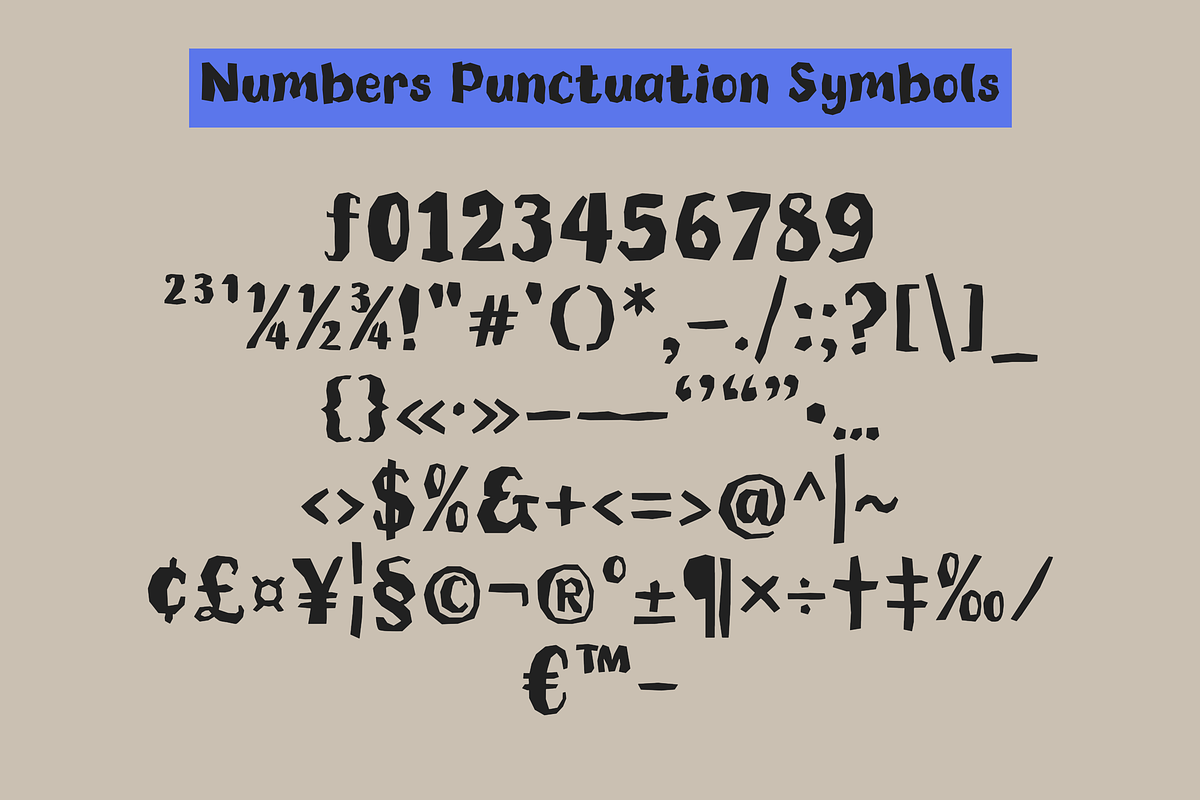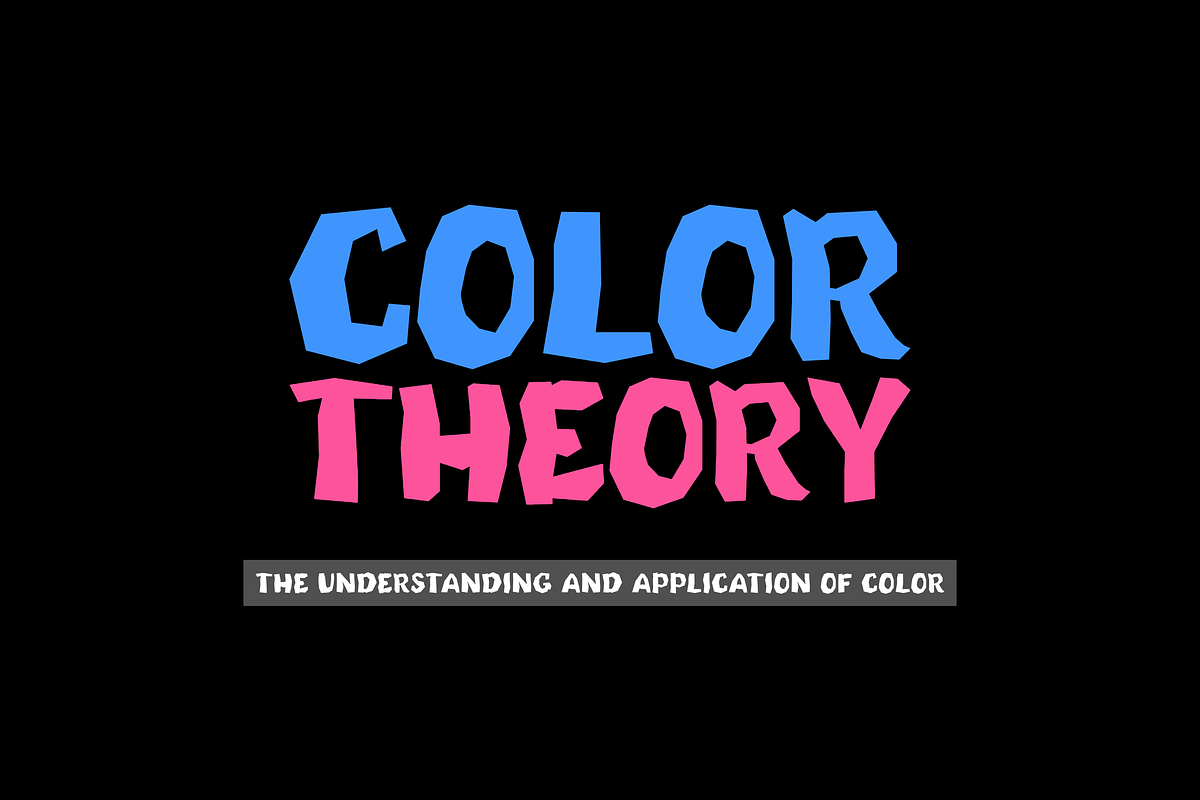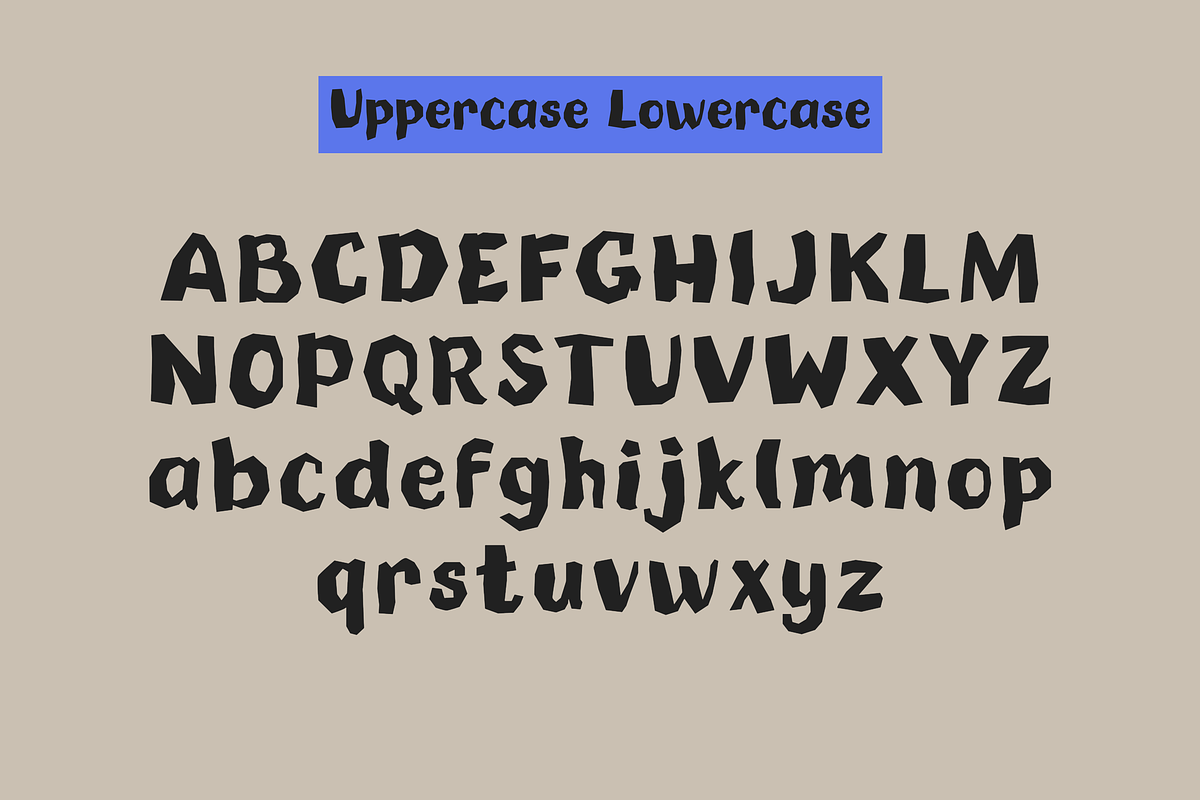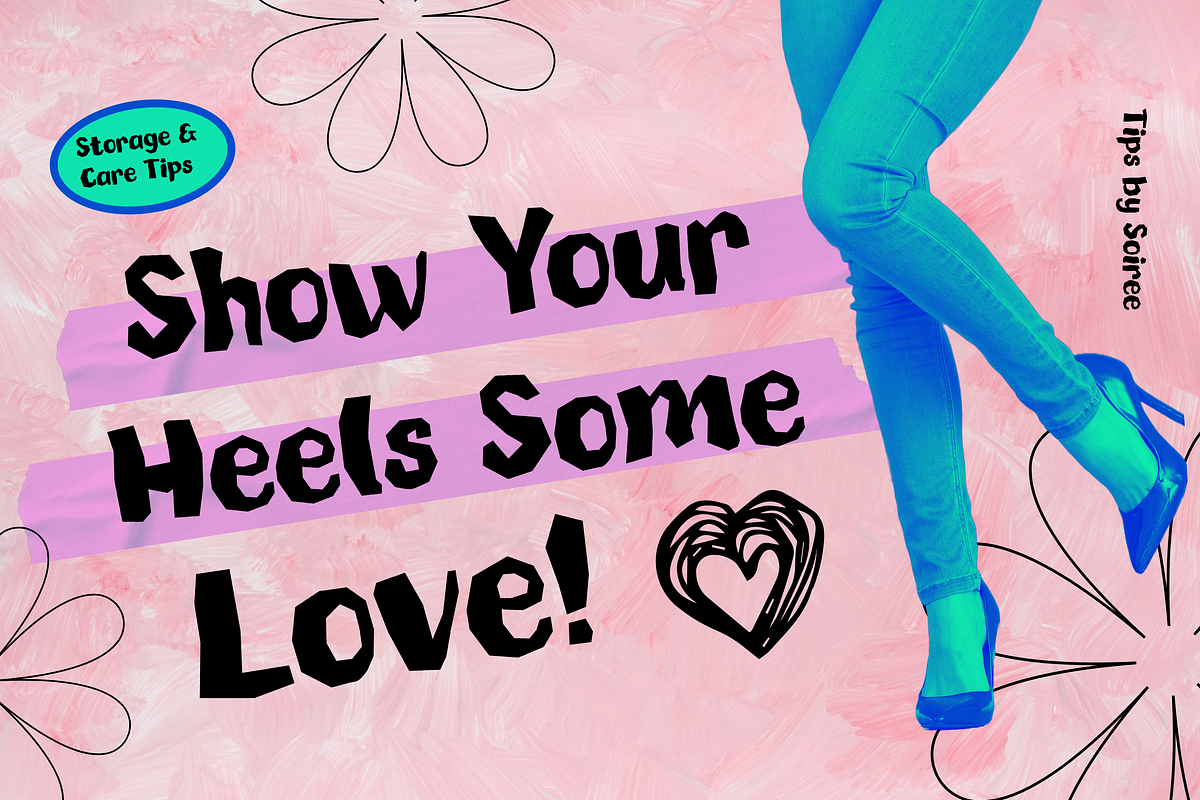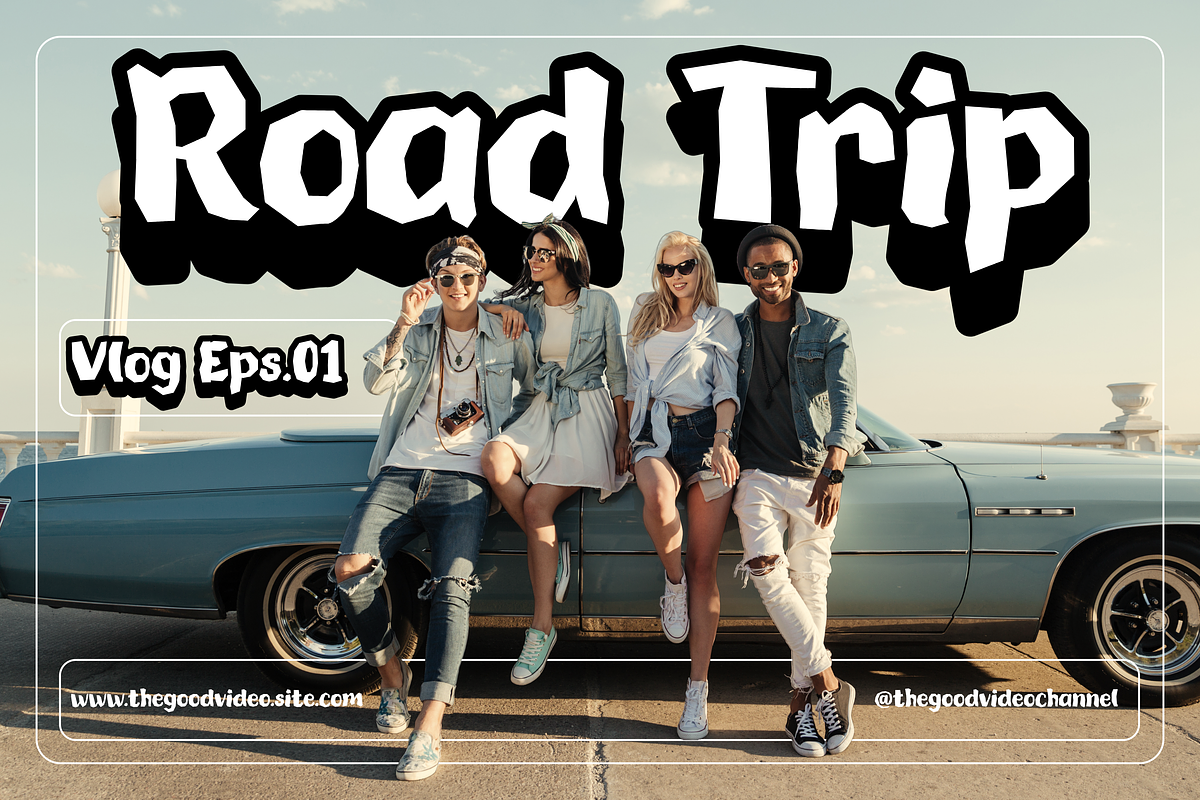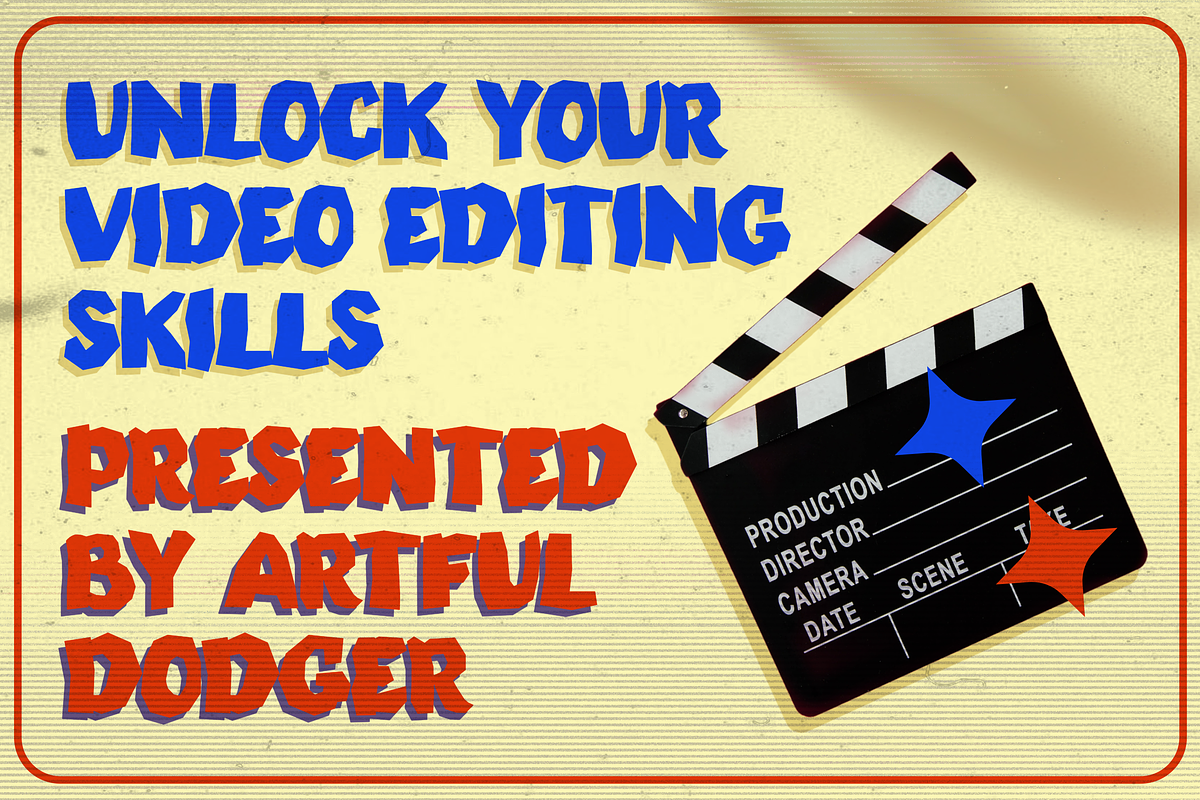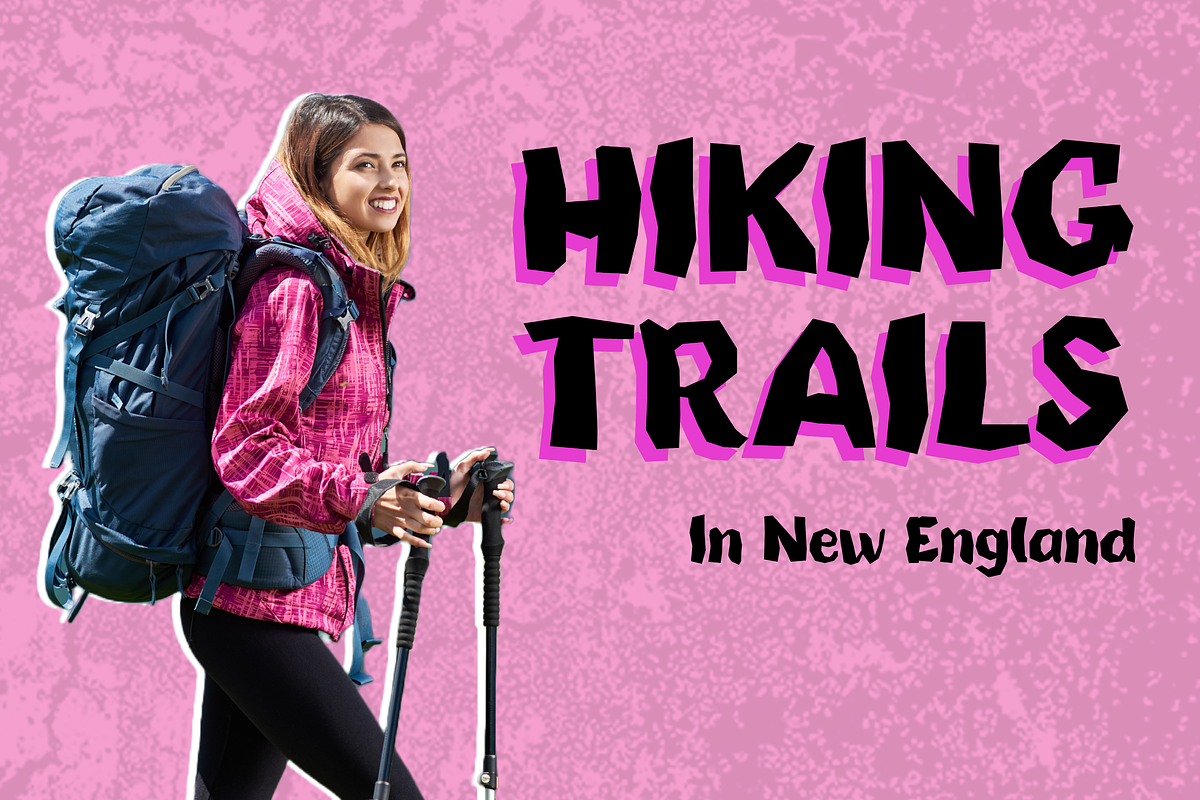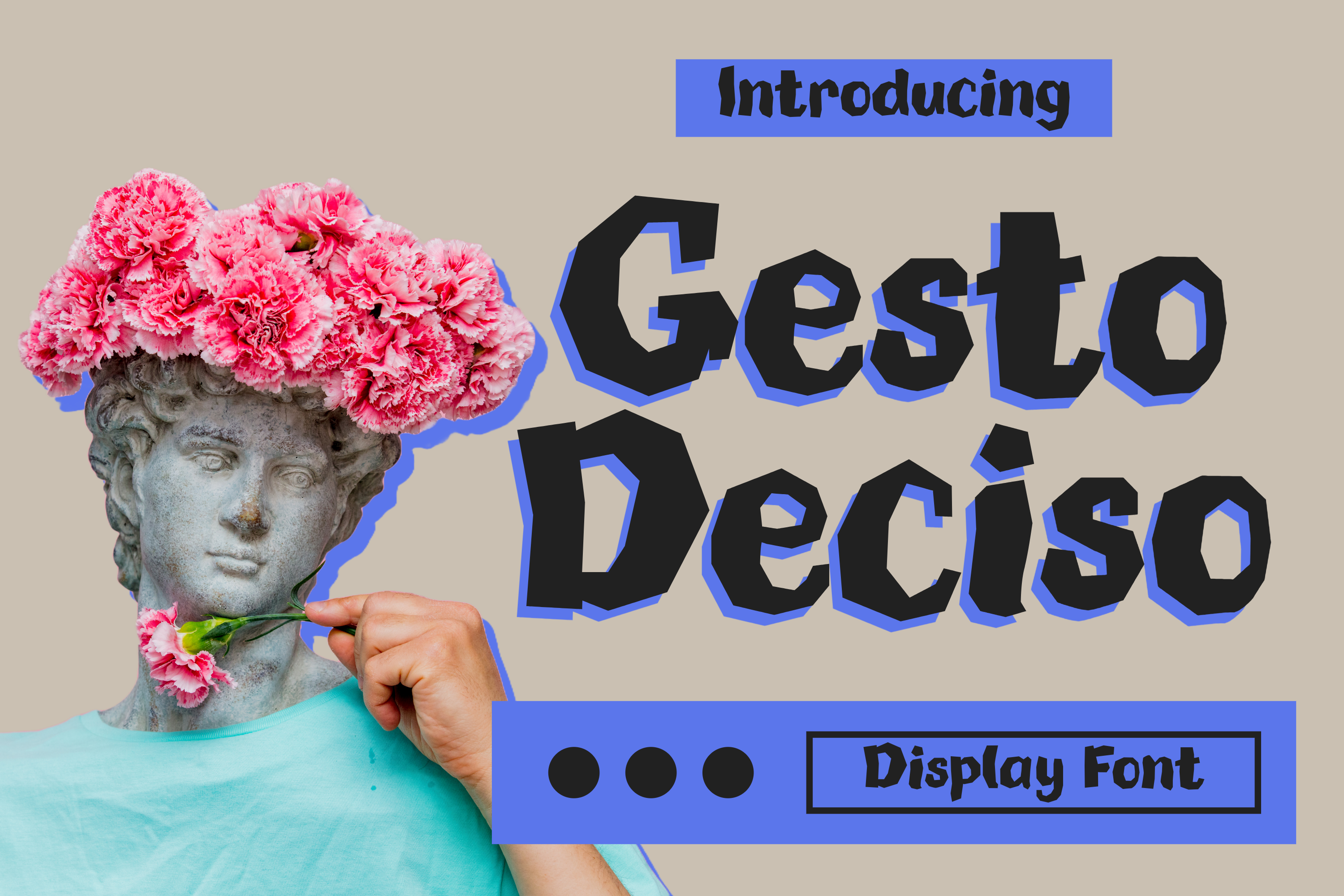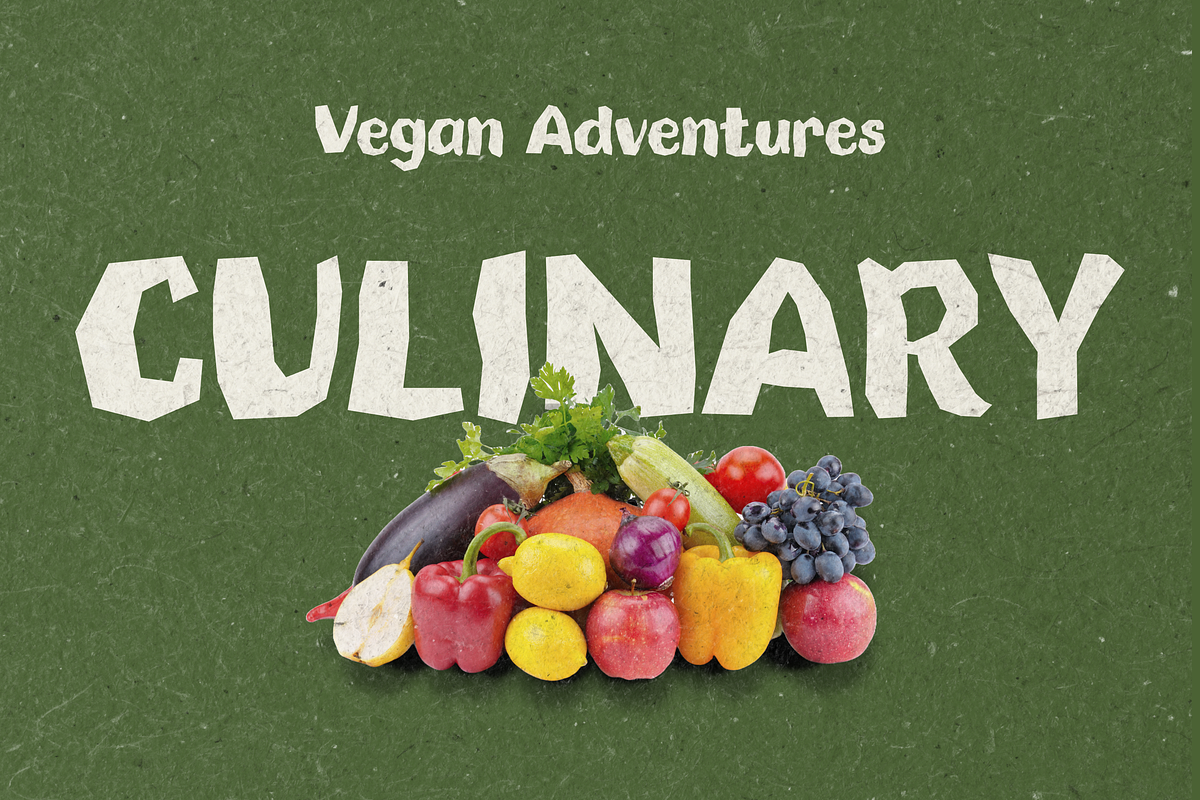
Gesto Deciso Faceted Display Font
Gesto Deciso is a bold, geometric display font characterized by its sharp angular cuts and powerful, chunky letterforms. Striking a unique balance between artistic expression and structural confidence, this typeface is designed to make an undeniable impact.
Inspired by contemporary collage art, modern zines, and bold pop-culture aesthetics, Gesto Deciso injects a fresh, edgy, and avant-garde vibe into any design. It is the perfect choice for creating eye-catching headlines, unique logo designs, editorial layouts, streetwear branding, and poster designs that demand immediate attention.
Contemporary Art Posters & Event Flyers
Avant-Garde & Streetwear Branding
Magazine Headlines & Editorial Layouts
Artsy Logo Designs & Packaging
Creative Social Media Graphics & Banners
Book Covers & Music Album Art
Standard Character Set (Uppercase & Lowercase)
Numbers, Punctuation & Symbols